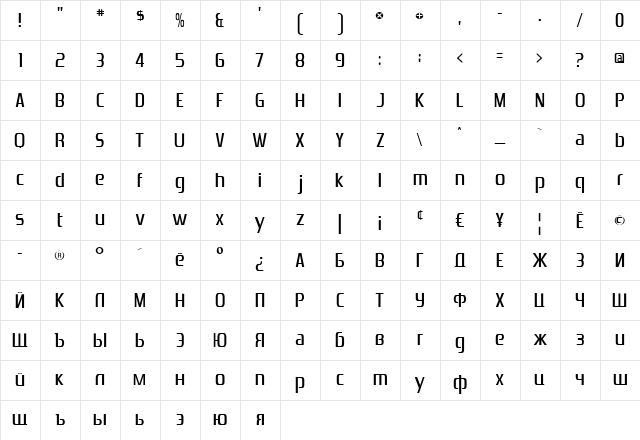
Ultra Vertex 9 Normal Font Preview
Ultra Vertex 9 Normal
Ultra Vertex 9 Normal Font Details
Design Context for Ultra Vertex 9 Typeface
Ultra Vertex 9 offers clean, dependable letterforms without strong stylistic allegiance, making it a practical choice for designers who need flexibility.